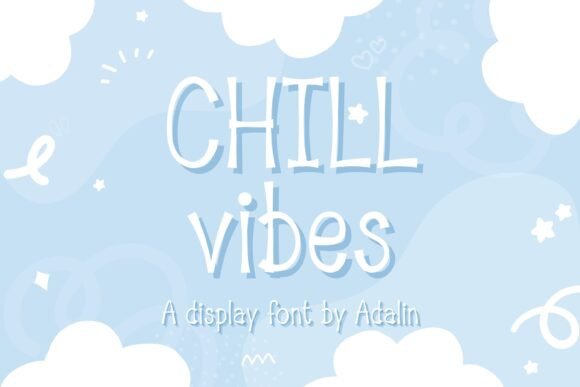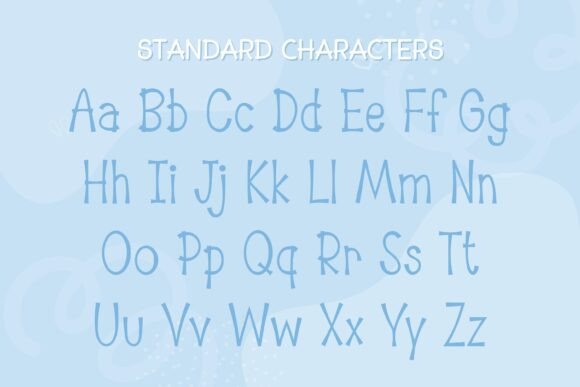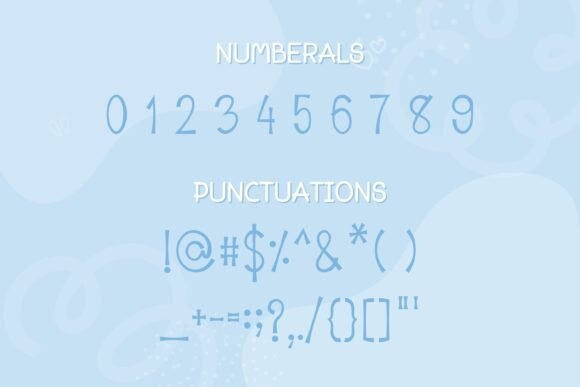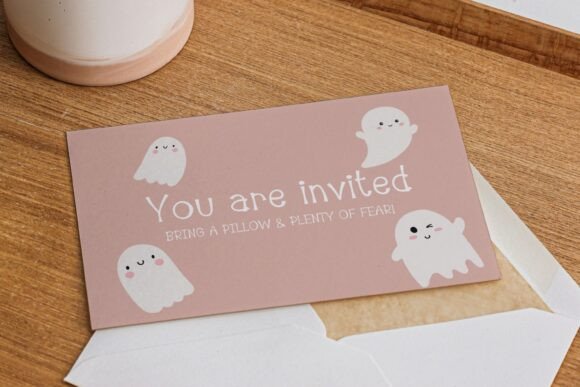
Chill Vibes Font: A Cute Display Font for Playful Designs
About the Chill Vibes Font
The Chill Vibes Font offers a perfect balance of form and function for your design needs. Immerse yourself in the sweet charm of Chill Vibes font, a delightful decorative font that effortlessly plays with aesthetics and versatility. Its adorable allure makes it a champion in crafting ventures and a go-to choice for designs longing for a pinch of joyous demeanor. You can seamlessly incorporate Chill Vibes font into a multitude of projects – from sprucing up gift tags to making book covers more appealing, invigorating posters, reinforcing packaging, personalizing merchandise, defining logotypes, and so much more. Dive into the refreshing appeal of Chill Vibes font and welcome a world where craft meets creativity.
Chill Vibes Font Usage Examples
Chill Vibes Font Example